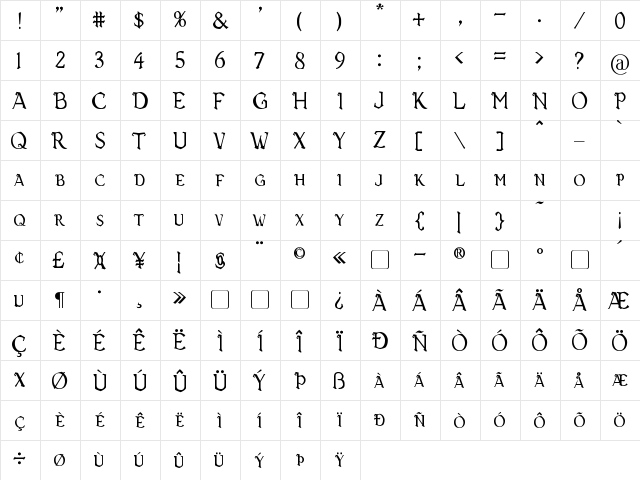
Vecna Regular
| Foundry | Neale Davidson |
| Designer | Neale Davidson |
Design Context for Vecna Typeface
Vecna takes a measured approach to typography — its balanced proportions and neutral character make it a reliable workhorse for both digital and print work.